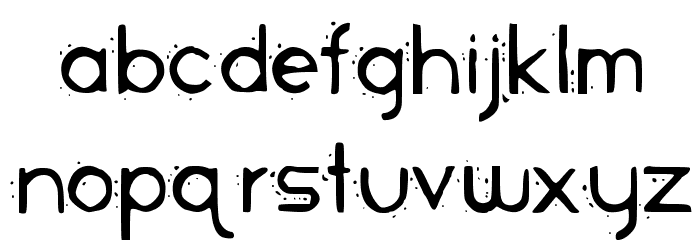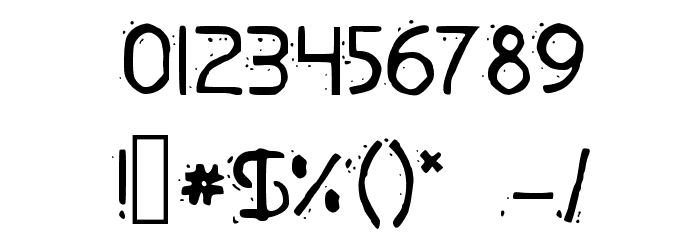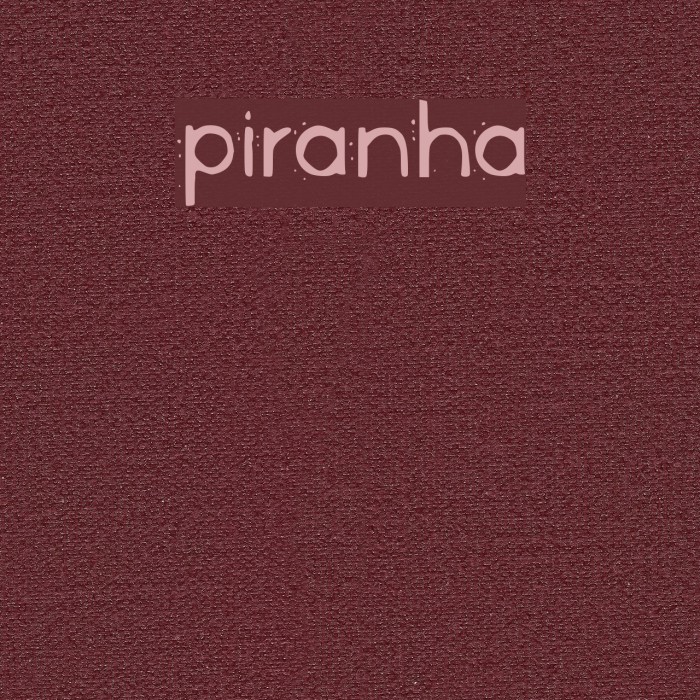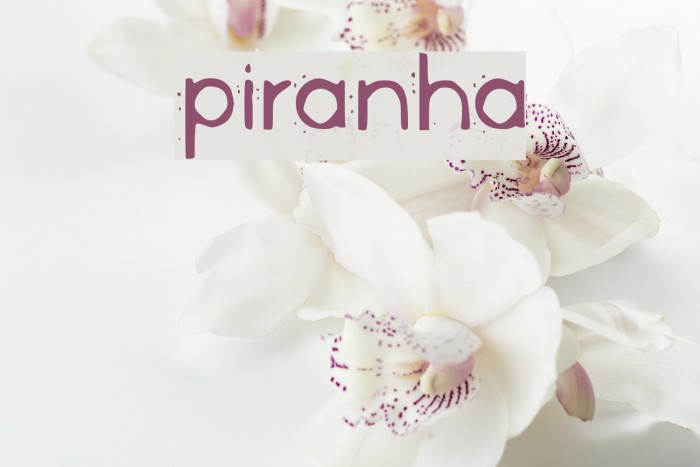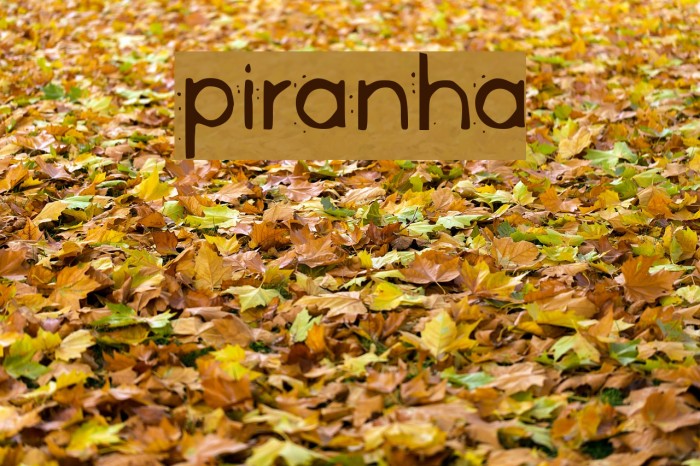
Piranha Font
This font features a playful and slightly distressed appearance, with a unique dotted texture that adds a sense of whimsy and creativity. The characters are rounded and have a consistent stroke width, giving them a friendly and approachable look. The lowercase letters have a uniform height, while the uppercase letters maintain a similar style, ensuring readability. The numbers and special characters follow the same design principles, making the font versatile for various uses. Its distinctive style makes it stand out, perfect for projects that require a touch of fun and originality.
A playful, dotted font with a whimsical and creative style.
- Proposed Projects: Ideal for children's books, playful branding, creative posters, and artistic invitations.